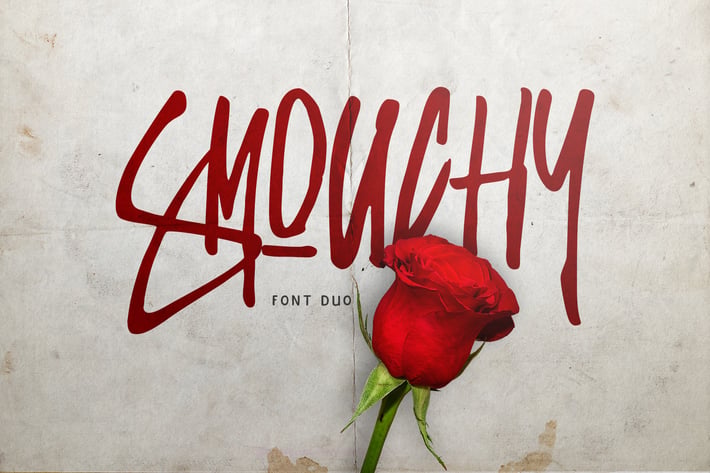
Smouchy Font Duo
Hand-brush letter with rugged and expressive stroke character make this typeface more fun and expressive to use. Combine the brush style with sans serif, both has rugged stroke and imperfect shapes, make it more enticing. Applicable for branding, logos, quotes, t-shirt, label, poster etc.
All Caps, numeral, punctuation & ligatures. Add some extra graphic to make your design more catchy :)